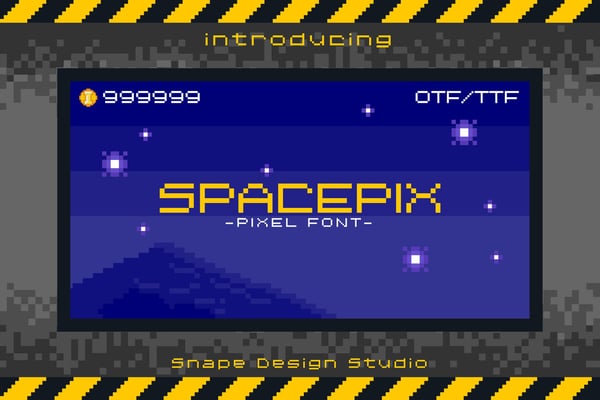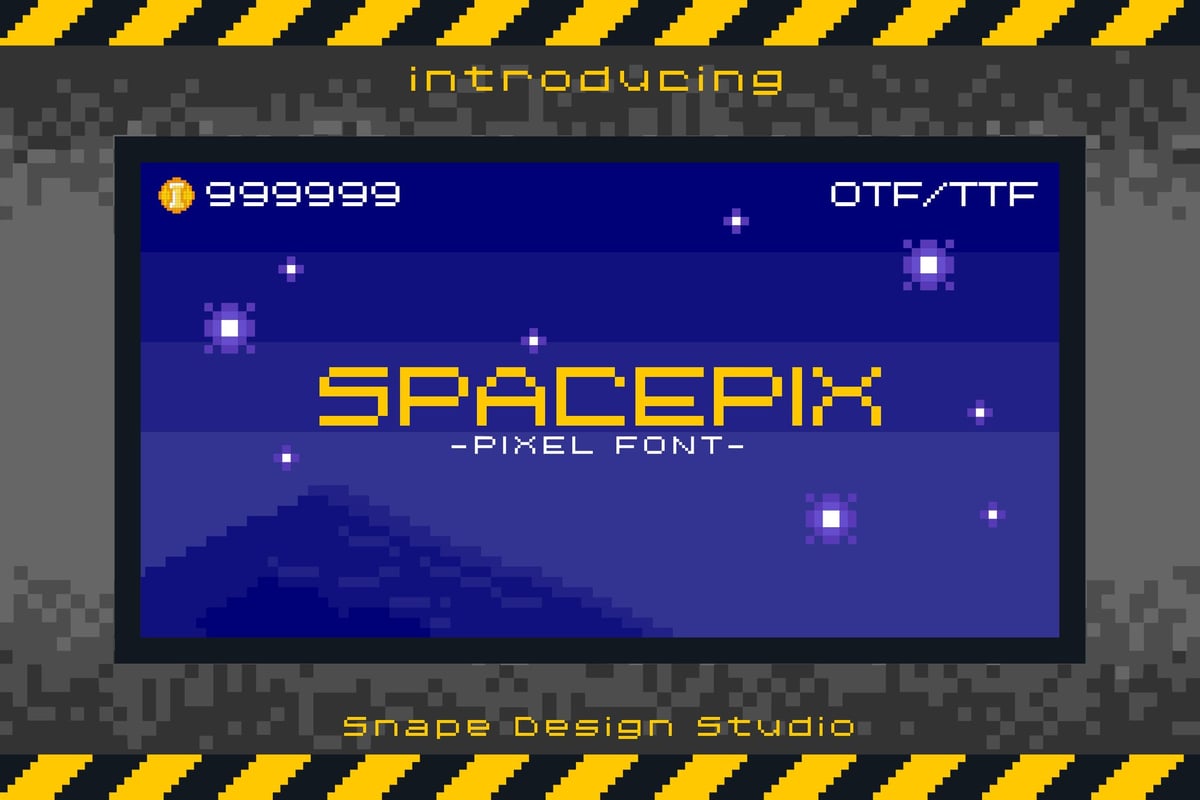
Spacepix - Pixel Font
Transform your projects with Spacepix - the ultimate retro pixel font that brings nostalgic arcade vibes to life! This distinctive pixelated typeface captures the essence of classic gaming aesthetics, making it the perfect choice for retro game designs. Its bold, blocky characters evoke the golden age of 8-bit gaming while maintaining excellent readability across various applications. Spacepix excels in movie titles, documentaries, film projects, logo design, eye-catching posters, game interface...